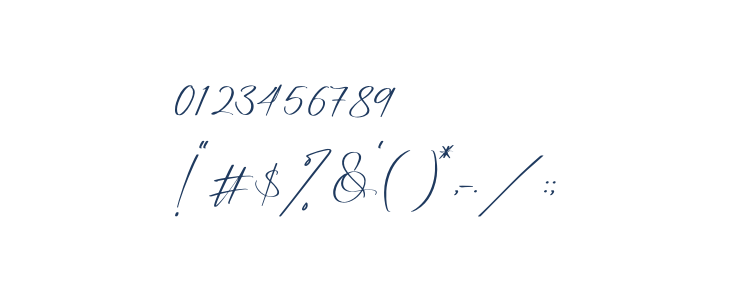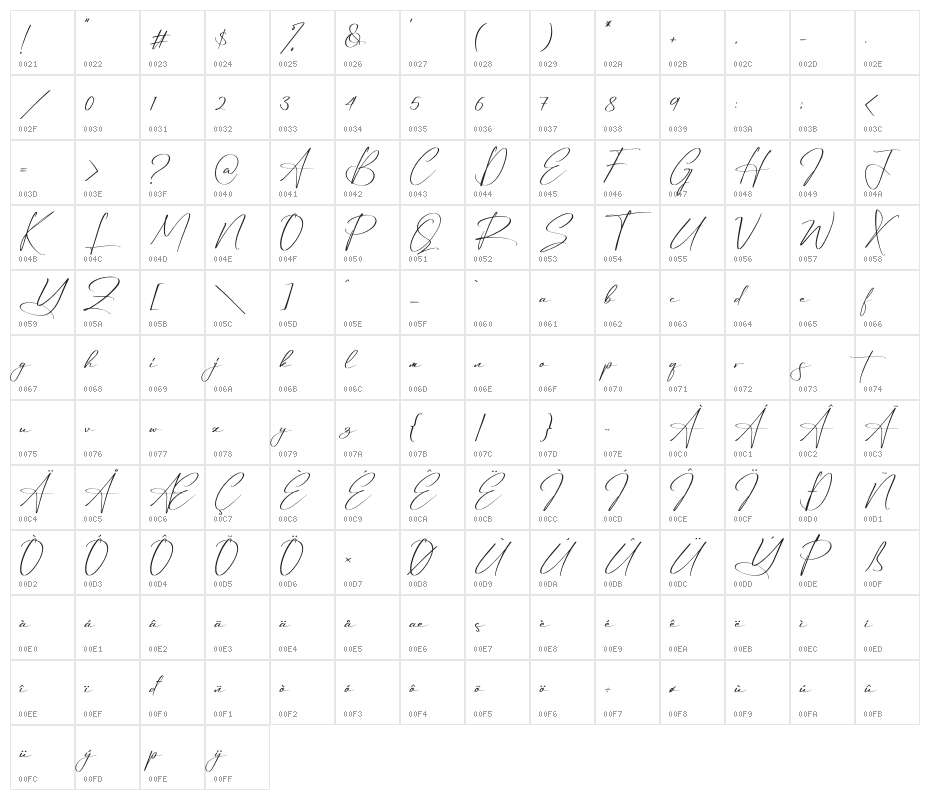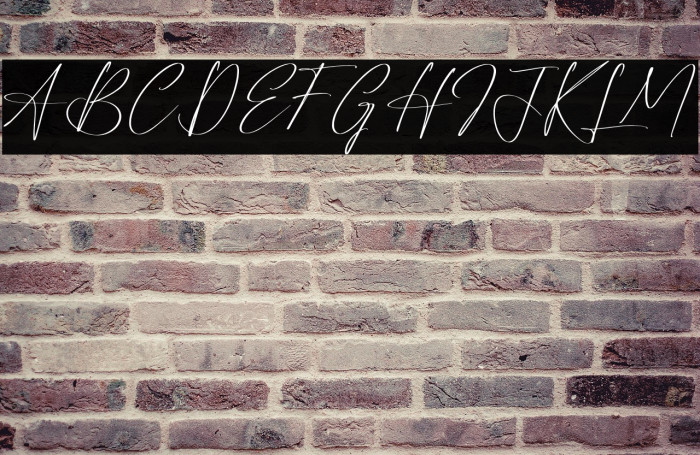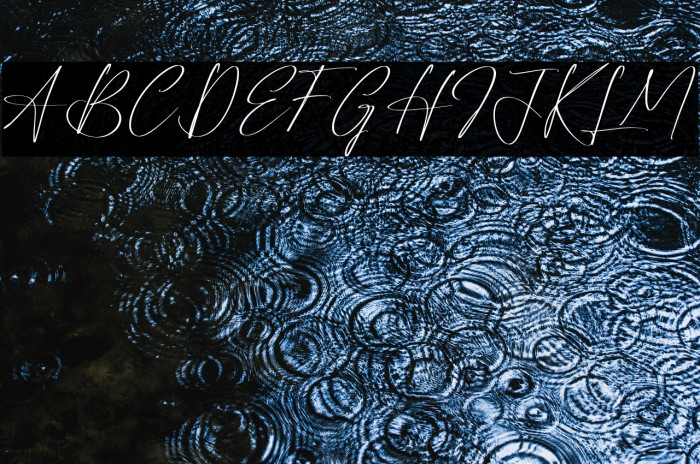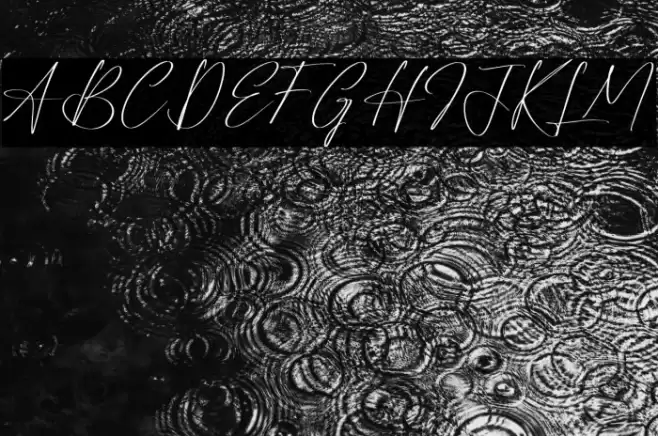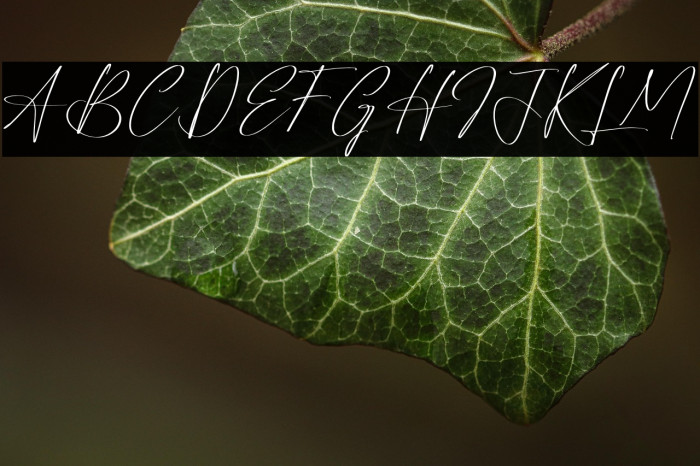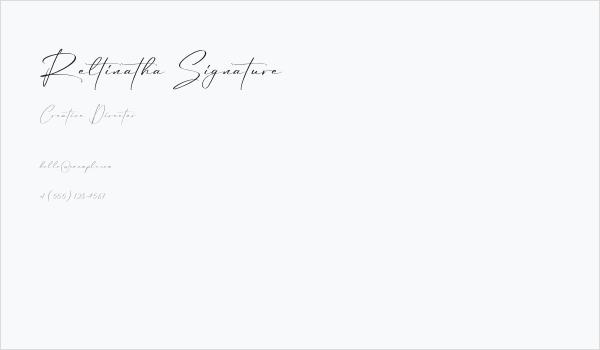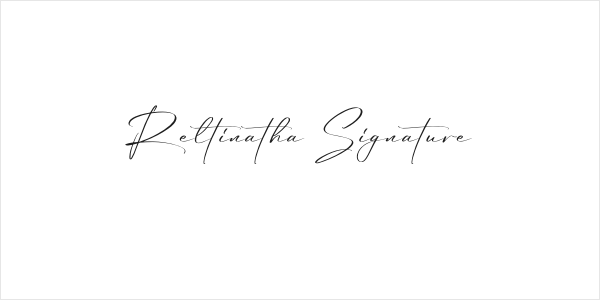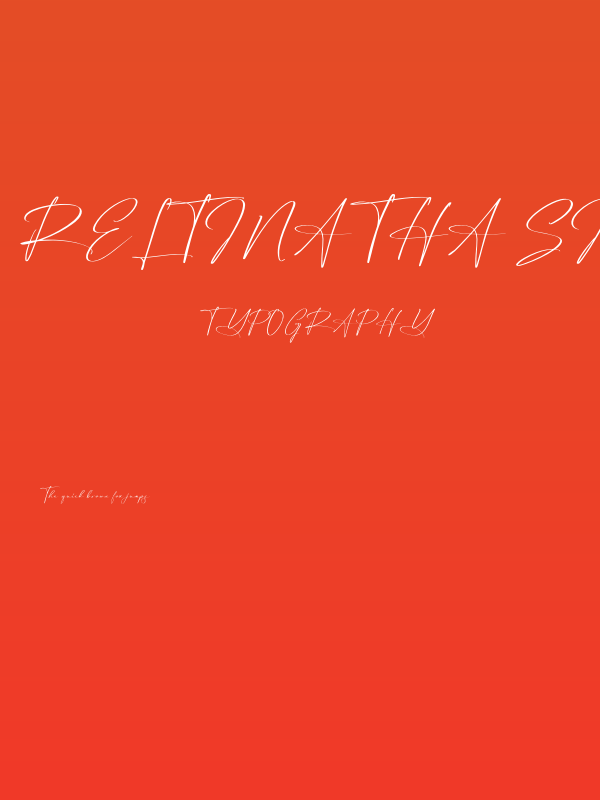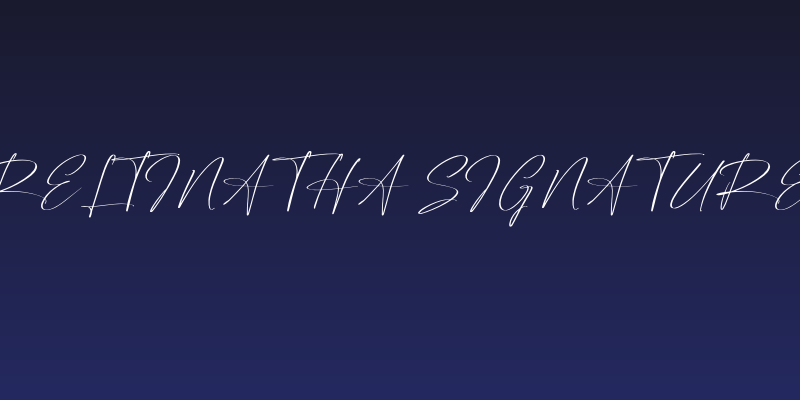
Reltinatha Signature Font
Reltinatha Signature Description
This font exudes elegance and sophistication with its flowing, cursive script style. The letters are interconnected, creating a seamless and fluid appearance that mimics the natural movement of handwriting. Each character is crafted with delicate strokes, offering a sense of grace and refinement. The uppercase letters are slightly more elaborate, featuring extended flourishes and loops, while the lowercase letters maintain a consistent and harmonious flow. The numerals and special characters complement the overall aesthetic, ensuring a cohesive look. This font is ideal for projects that require a personal touch, such as invitations, branding, and decorative purposes.
| Overall Style | Elegant, Sophisticated |